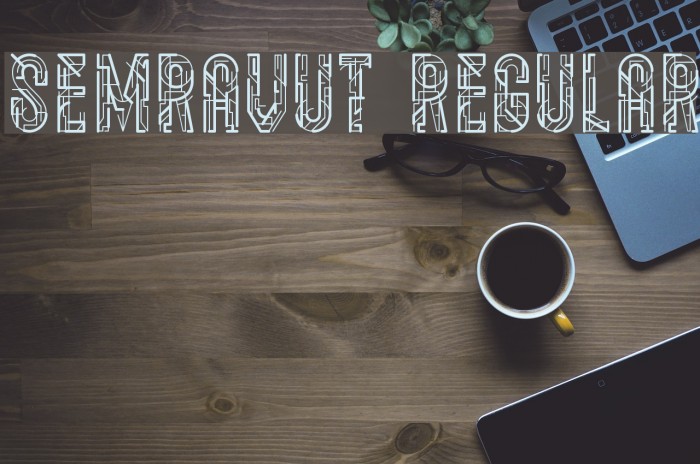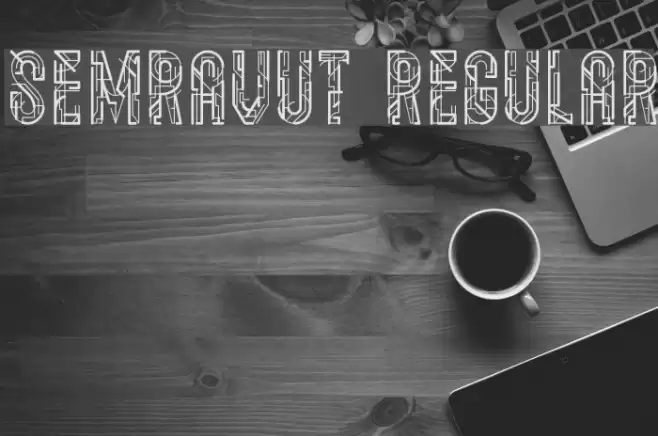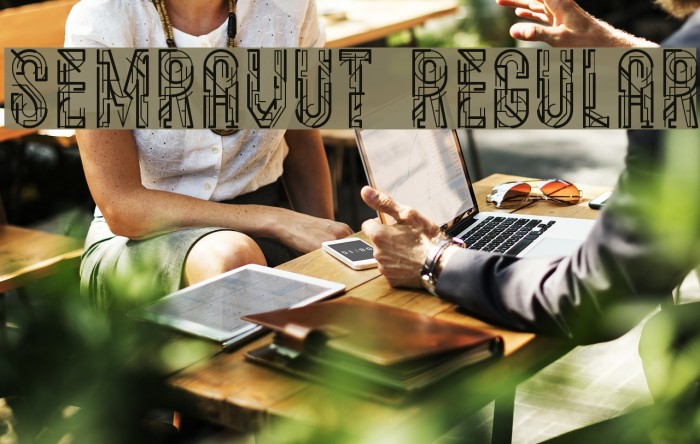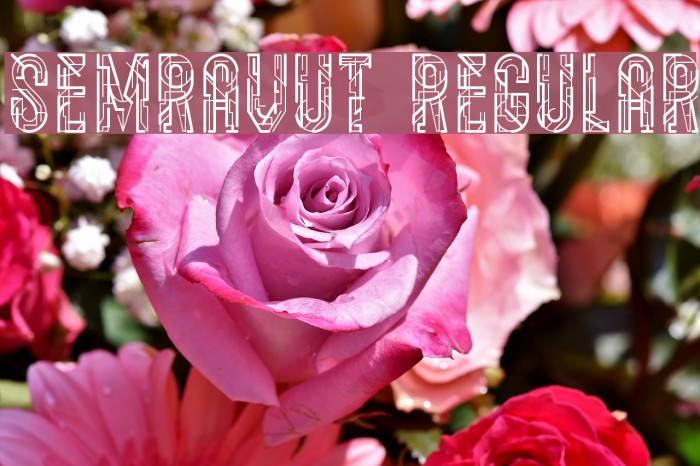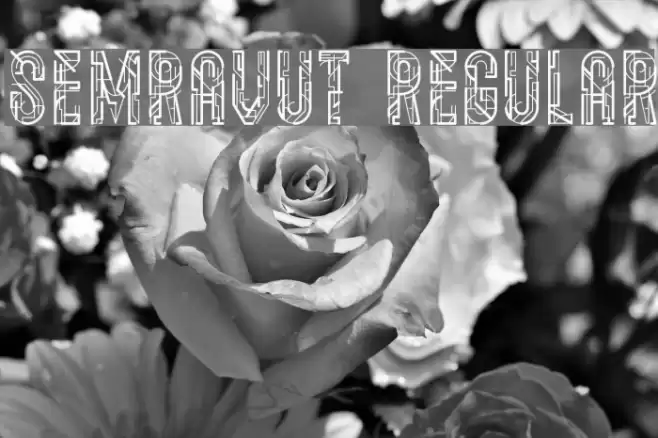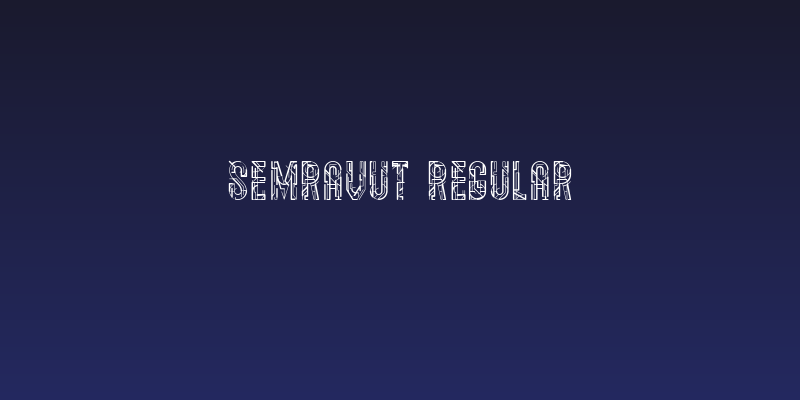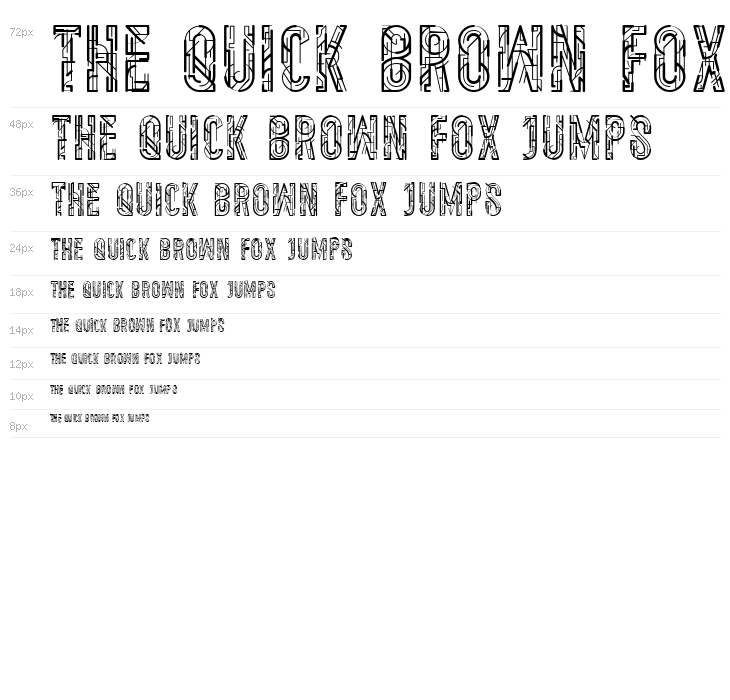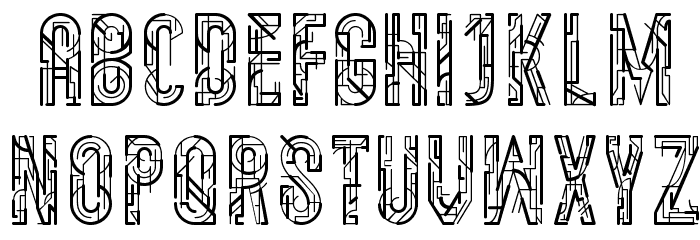
Semravut Regular Font
Semravut Regular Description
This font features a unique and intricate design with a geometric and abstract pattern within each character. The letters are outlined, creating a hollow effect that is filled with a maze-like structure. This decorative style gives the font a modern and artistic appearance, making it stand out in any design. The uppercase and lowercase letters maintain consistent styling, ensuring uniformity across the typeface. The numbers and special characters are designed with the same attention to detail, providing a cohesive look throughout.
| Proposed Projects | Ideal for artistic posters, modern branding, album covers, and creative digital art projects. |